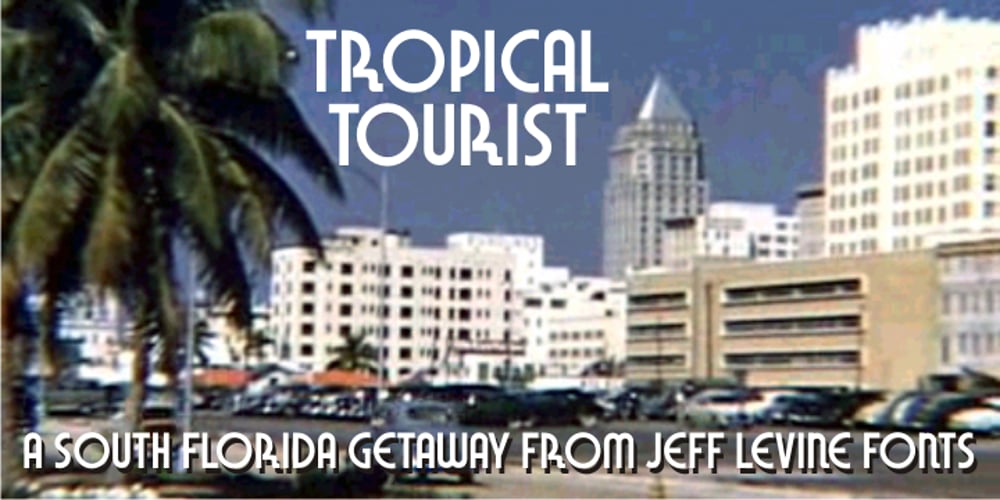
Tropical Tourist JNL Font Family was designed by Jeff Levine and published by Jeff Levine. Tropical Tourist JNL contains 1 styles and family package options. A 1934 advertisement for the Roney Plaza Hotel at 23rd Street and Collins Avenue on Miami Beach yielded the inspiration for Tropical Tourist JNL. While this wonderful example of Art Deco lettering survived, sadly the original Roney was torn down around 1969 and replaced with a modern apartment house/condos bearing the same name.